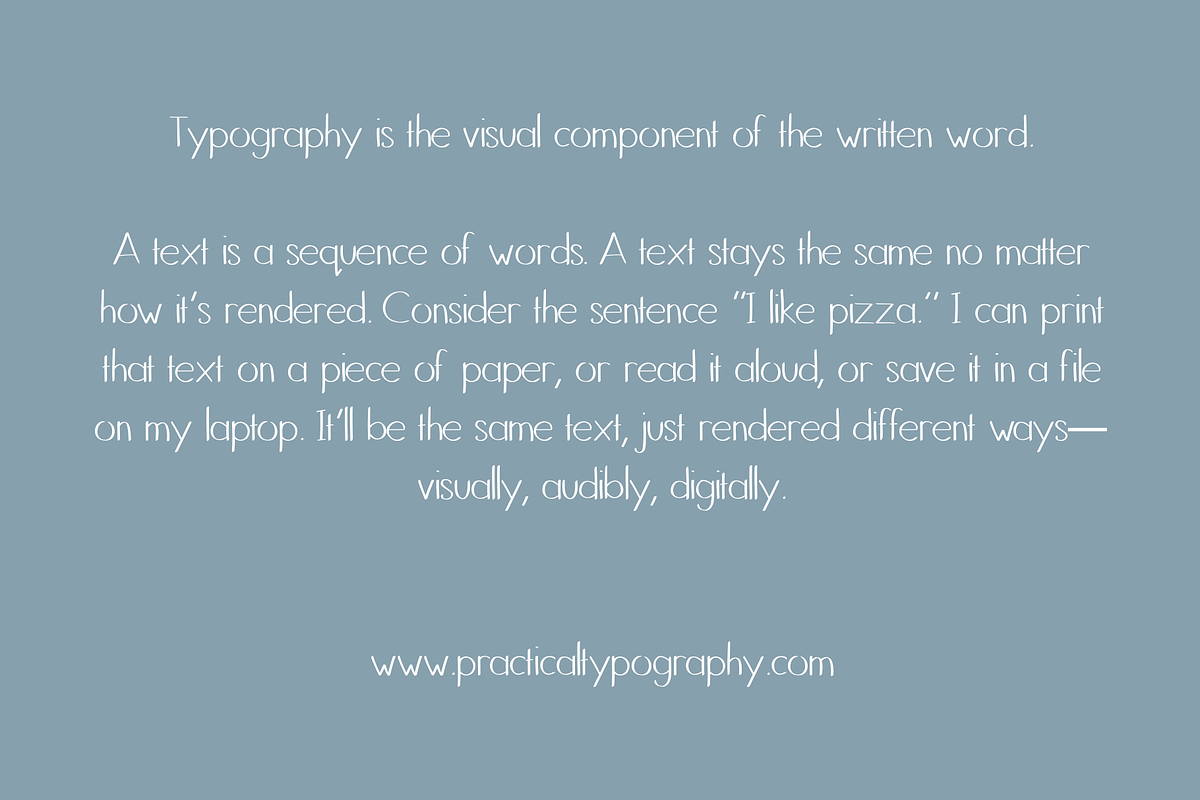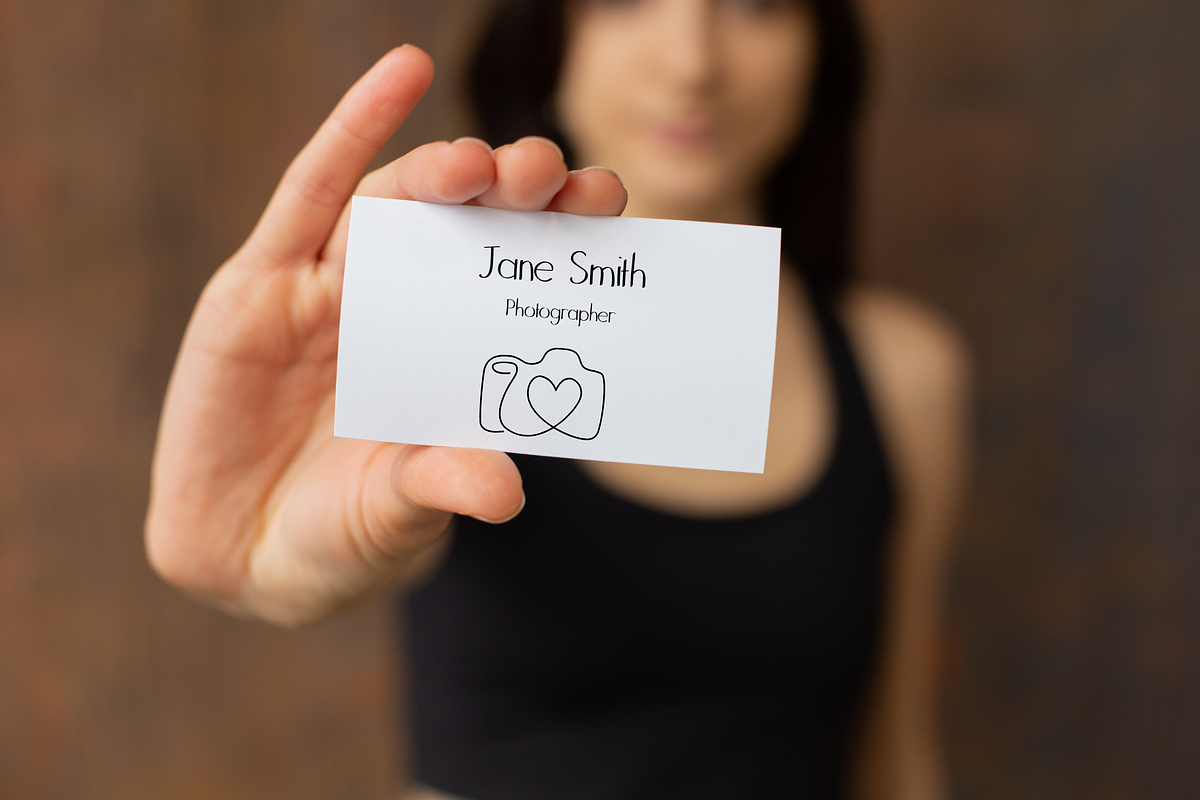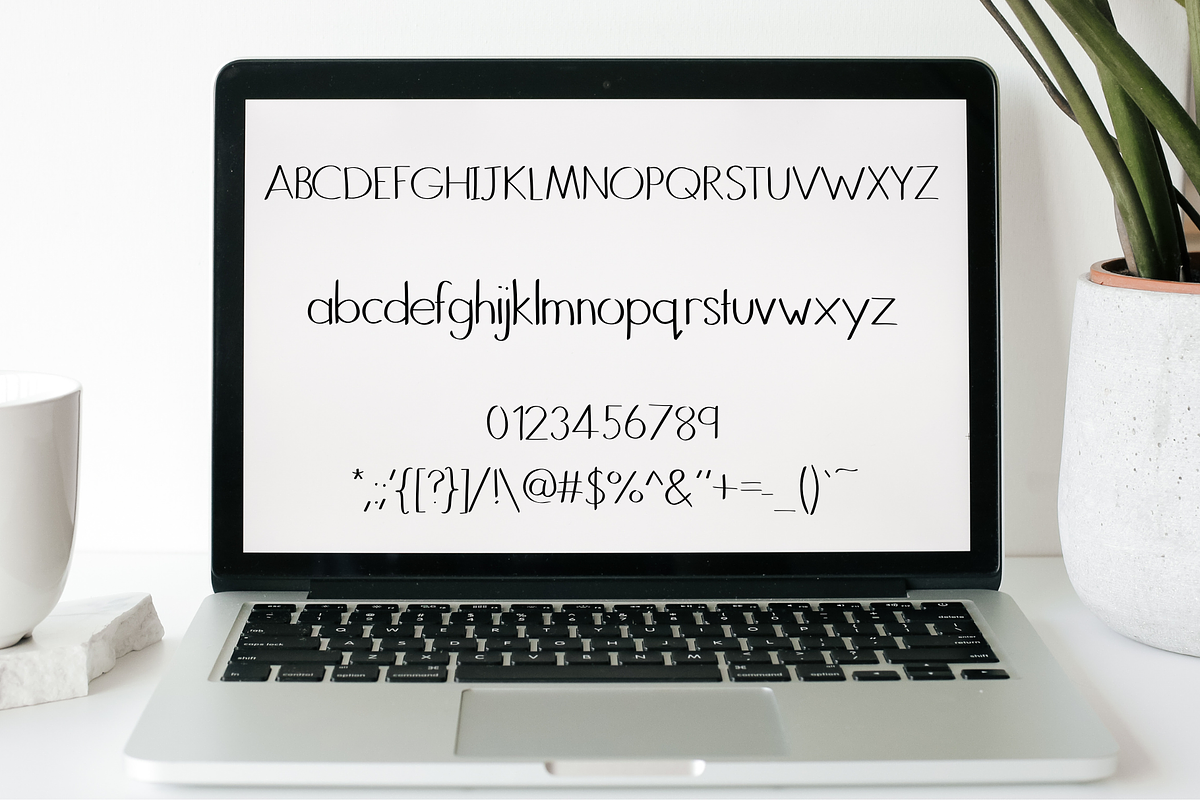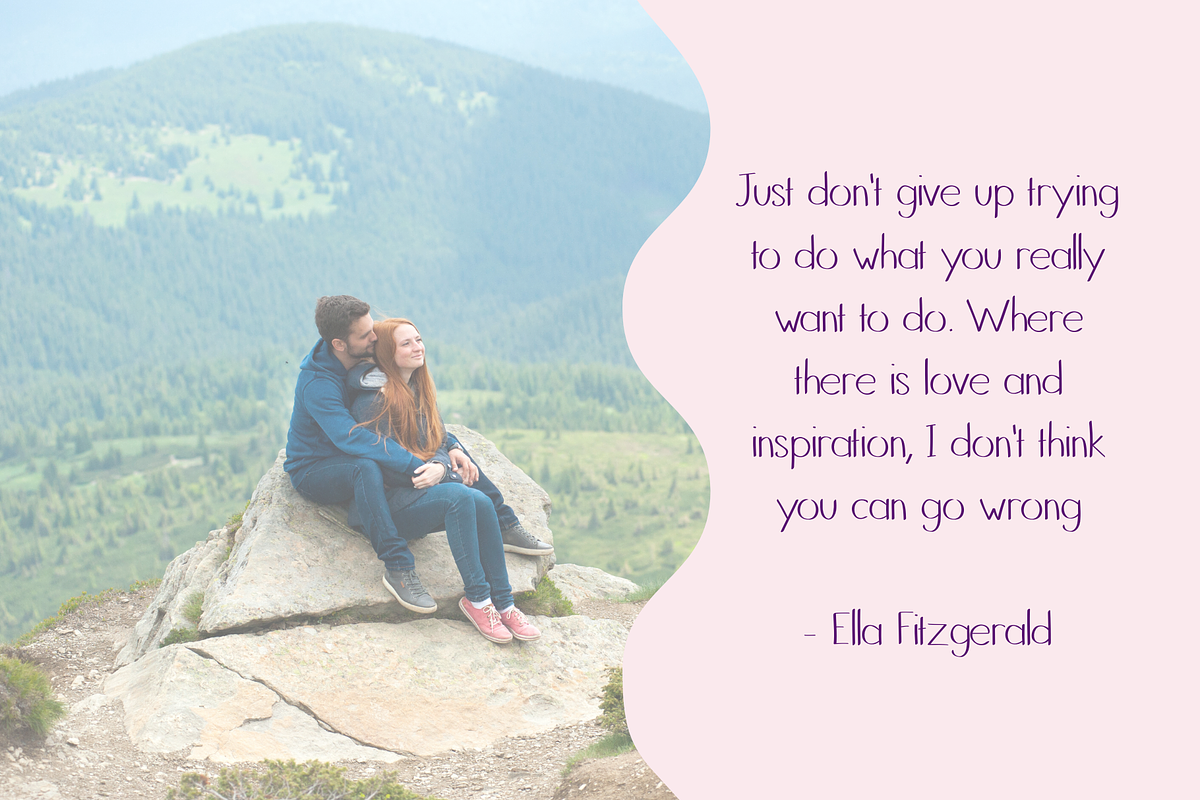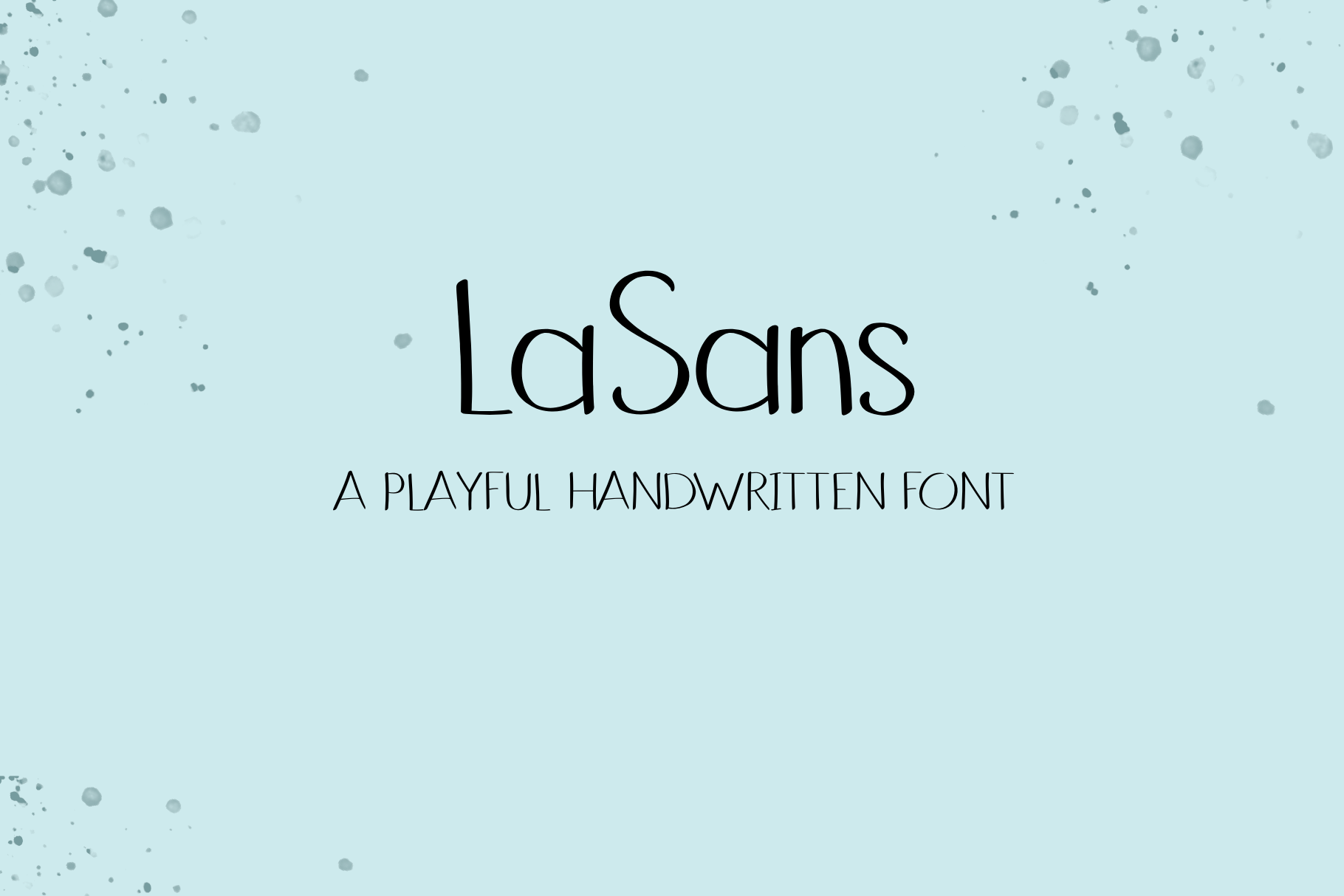
LaSans - A Handwritten Font
LaSans is a clean, modern handwritten font with a natural, personal touch. Perfect for branding, social media, packaging, and more, it combines simplicity and warmth for a versatile, stylish look.
Includes: Uppercase and lowercase, punctuation and numbers
Bring a handcrafted feel to your designs with LaSans!